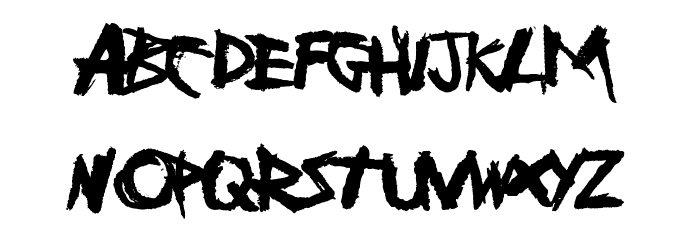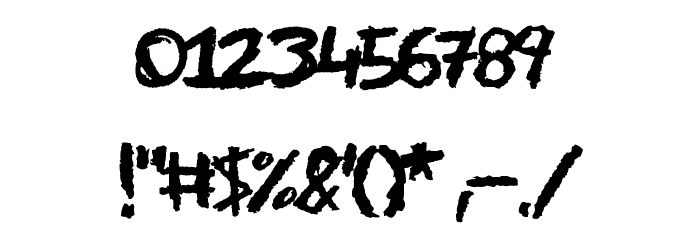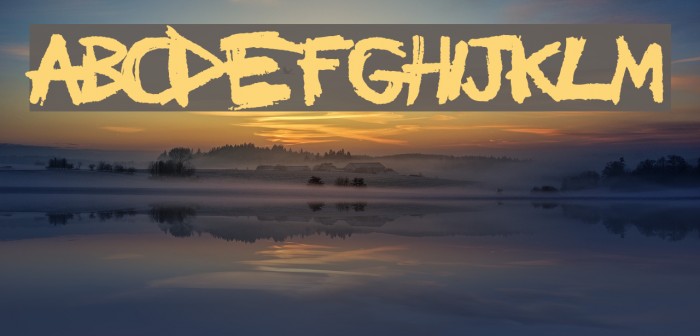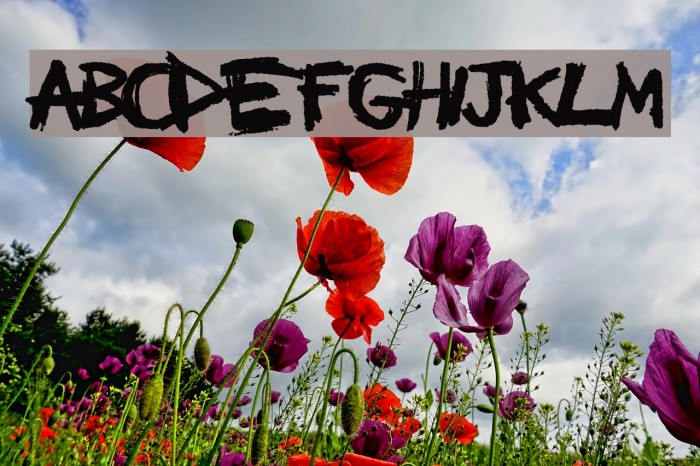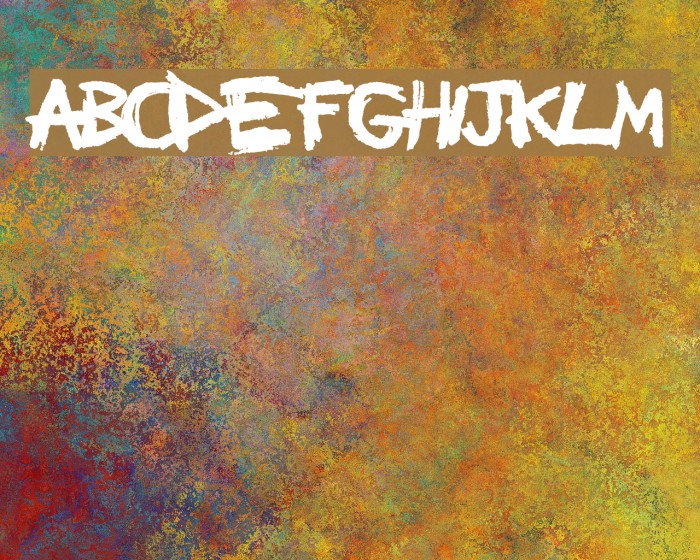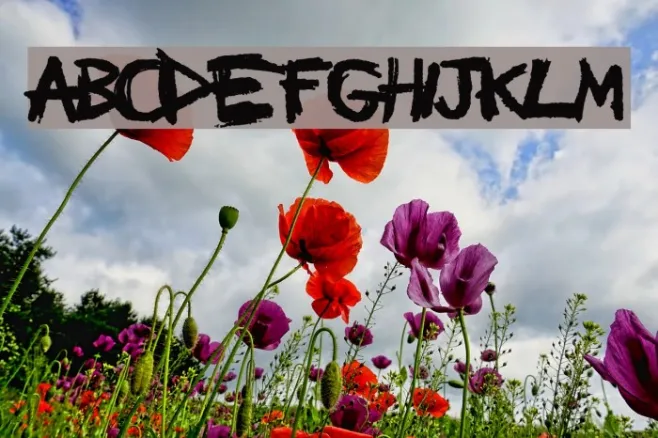
People Are People Font
This font exhibits a bold, expressive style with a hand-drawn, graffiti-like appearance. The characters are irregular and dynamic, featuring thick strokes and rough edges that give it an energetic and rebellious feel. The uppercase and lowercase letters maintain a consistent style, with exaggerated angles and a slightly chaotic arrangement. Numbers and special characters follow the same aesthetic, adding to the overall raw and urban vibe. The font's unique design makes it stand out, ideal for projects that require a strong, impactful visual presence.
A bold, graffiti-inspired font with a hand-drawn, energetic style.
- Proposed Projects: Ideal for street art designs, music album covers, urban-themed posters, and edgy branding projects.
- Overall Style: Urban, Graffiti, Energetic
- Use Case: Logos, Posters, Album Covers